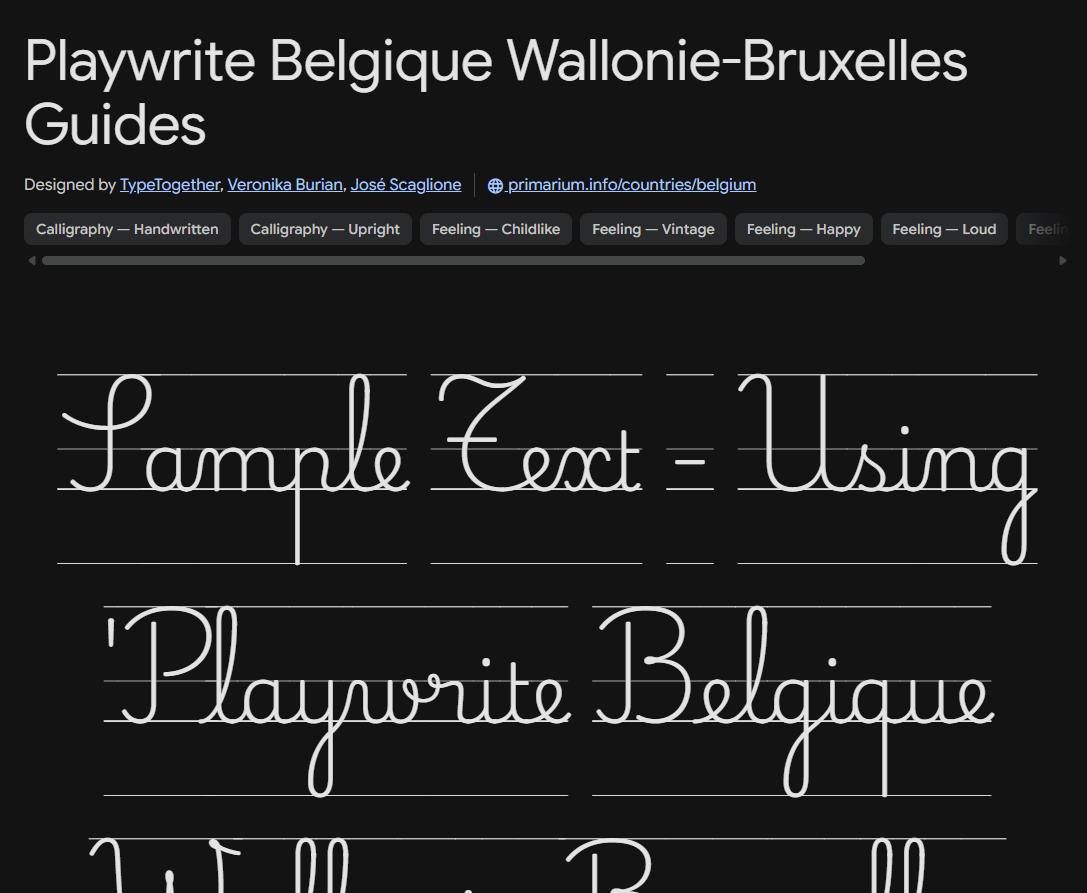
Engineered by Veronika Burian and José Scaglione of TypeTogether, Playwrite Belgique Wallonie-Bruxelles Guides serves as a high-fidelity digital translation of the specific cursive models utilized in the Belgian educational sector. This specialized typeface harmonizes complex glyph skeletons with integrated horizontal metrics, specifically tailored to the Wallonia-Brussels pedagogical standards for handwriting acquisition. By embedding foundational guide lines within the font's vertical metrics, the design facilitates a structured environment for developing motor skills, where each stroke's ductus and exit stroke are optimized for legibility and instructional accuracy. This single-style release operates as a vital typographic bridge, utilizing advanced OpenType features to maintain the integrity of regional script traditions within a contemporary, scalable vector format.
The Playwrite Belgique Wallonie-Bruxelles Guides typeface serves as a sophisticated pedagogical tool, bridging the gap between historical cursive construction and modern digital typography through its meticulous upright handwritten calligraphy. Engineered with high-fidelity glyphs that mirror the specific regional handwriting standards of French-speaking Belgium, this variable font utilizes integrated ruling lines to create a rugged and loud visual rhythm, providing the essential structural scaffolding for early learners. Its aesthetic profile captures a unique duality: the childlike and happy essence of a playful classroom environment, while simultaneously evoking a vintage, archival sentiment rooted in traditional ink-and-paper education. By leveraging advanced contextual alternates to maintain fluid stroke connections, the family transforms a standard digital interface into a tactile, instructional space where the innocence of a primary student's first letters meets the technical precision of contemporary type foundry engineering.
While Playwrite Belgique Wallonie-Bruxelles Guides, meticulously engineered by Veronika Burian and José Scaglione for TypeTogether, excels as a specialized pedagogical instrument for primary handwriting acquisition, its unique didactic architecture-defined by integrated horizontal guides and regional cursive joins-renders it fundamentally unsuitable for high-density corporate communication or accessible UI/UX environments. The typeface's rigid adherence to school-script vertical metrics and its single-style weight distribution lack the necessary optical scaling and typographic hierarchy required for complex information architecture in the legal, medical, or financial sectors. Because the glyph construction is optimized for motor-skill development rather than rapid digital scannability, the inherent visual noise from the ruling lines and pedagogical ligatures creates significant cognitive load, making it an inappropriate choice for ADA-compliant web interfaces or any professional context demanding the neutral authority and high-contrast legibility of standard commercial sans-serif or serif families.
Integrated guide lines establish a fixed baseline and cap height that dictate the rhythmic flow and density of the text block. By anchoring the x-height to specific grid units, these guides ensure vertical consistency across multiple text frames through strict adherence to the font's internal UPM scaling.
Most advanced educational fonts allow users to enable or disable the rule lines through the Stylistic Sets or Character Variants panels in design software. This functionality typically relies on the ss01-ss20 feature tags, which swap standard glyphs for versions mapped with encoded background vectors.
To ensure the guide lines remain visible and do not break apart during rendering, a minimum size of 18 to 24 points is generally recommended. Technical legibility is maintained at these scales because the stroke width of the guides is optimized to exceed the 0.5-point minimum threshold required for high-density offset printing.
The font is engineered so that ascenders reach the top auxiliary line while descenders terminate precisely at the lower baseline marker. This alignment facilitates a standardized vertical proportions model, often matching the 4:4:4 ratio commonly found in traditional French ruling or D'Nealian handwriting systems.
Low-contrast geometric sans-serifs provide a clean aesthetic balance without competing with the decorative nature of the guide lines. Pairing with a typeface like Montserrat or Futura works well because their high x-heights and circular apertures mirror the mathematical construction of the script's skeleton.
In variable font versions, the weight axis typically adjusts only the character strokes while keeping the guide lines at a constant, hairline thickness. Maintaining a static weight value for the guides prevents visual clutter and ensures the structural scaffolding remains subordinate to the primary letterforms across the entire design space.
The leading should be set significantly higher than the point size to provide a clear buffer between the descender line of one row and the ascender line of the next. Calculating line height at 120% to 140% of the font size prevents collision of the glyph bounding boxes, preserving the integrity of the integrated rule lines.
The font includes contextual alternates that automatically adjust the entry and exit strokes of lowercase letters to ensure fluid connectivity. Utilizing the calt OpenType feature allows the typeface to dynamically select glyph variants based on neighboring characters, mimicking the natural flow of continuous cursive script.
High-resolution printing preserves the crispness of the thin guide lines, whereas digital displays may require anti-aliasing to avoid shimmering effects at small sizes. On 300 DPI outputs, the vector-defined guides maintain a sharp 0.1mm profile, while lower resolution screens may necessitate sub-pixel rendering to prevent the lines from dropping out.
These integrated guides serve as a built-in template for student practice, eliminating the need for manual line drawing in layout software. From a pedagogical standpoint, the guides function as a cognitive scaffold that leverages the font's internal vertical metrics to standardize letterform height and slant for early learners.